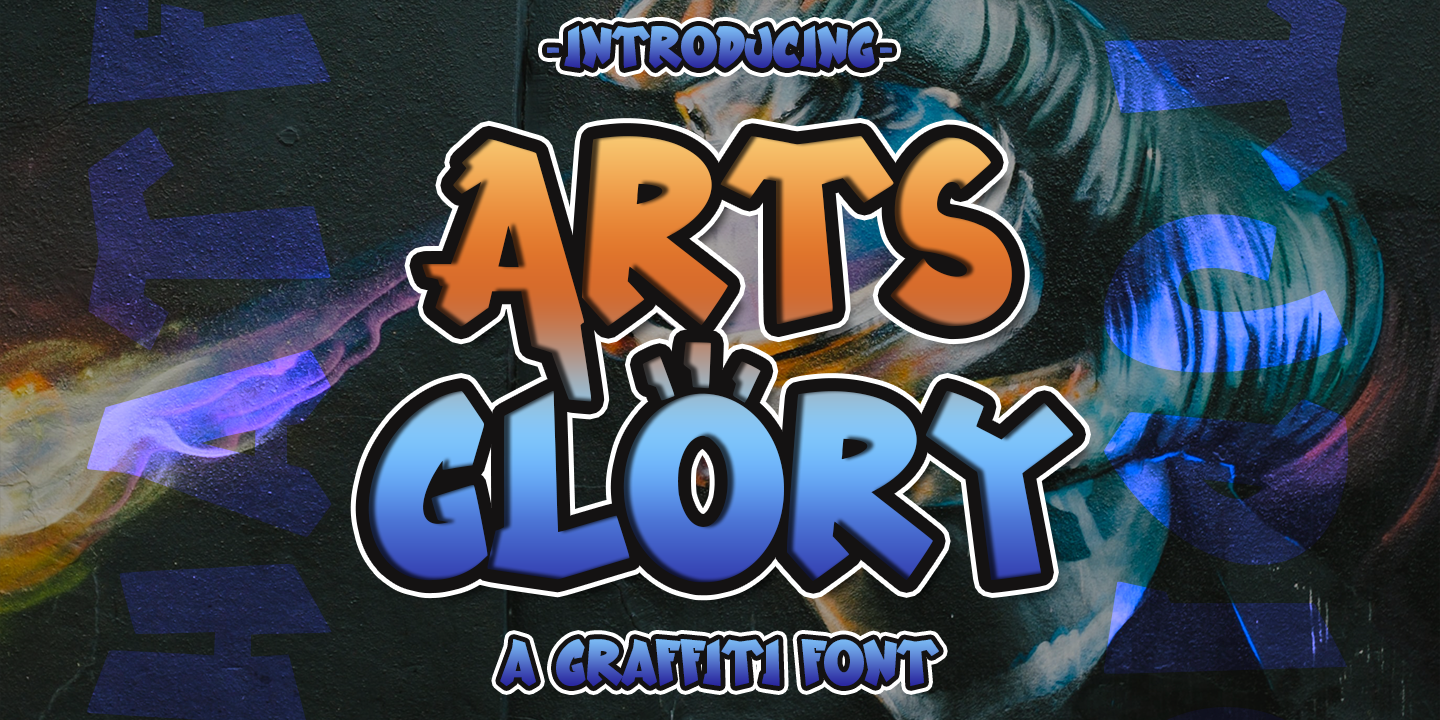
Arts Glory Font is perfect for creative projects including art gallery exhibitions, museum displays, creative studio branding, artistic portfolios, cultural event posters, theater programs, music album covers, and artistic social media content. This sophisticated typeface excels in fine arts applications, creative agency logos, art book layouts, exhibition catalogs, artistic merchandise, and contemporary design projects.
What makes Arts Glory Font exciting is its bold artistic expression that captures the essence of creative brilliance and cultural sophistication. The font features striking geometric elements combined with organic flowing curves that reflect the dynamic nature of artistic creation. Its unique character design incorporates subtle artistic flourishes that add depth and personality while maintaining professional readability. The carefully crafted letterforms demonstrate exceptional attention to detail, making each character a work of art in itself.
Arts Glory Font comes in multiple family variations including regular, bold, light, condensed, and extended styles. Each weight maintains the distinctive artistic character while offering different levels of visual impact and space efficiency. The complete font family includes special alternates, stylistic sets, and decorative elements that provide designers with extensive creative possibilities for unique typographic compositions.
Whether you're designing exhibition materials, creating artistic branding, or developing cultural projects, Arts Glory Font Free Download delivers exceptional creative potential for expressing artistic vision through typography. This remarkable typeface transforms ordinary text into compelling visual statements that resonate with art enthusiasts and creative professionals. Download this inspiring font today and bring artistic glory to your design projects with sophisticated typographic excellence.